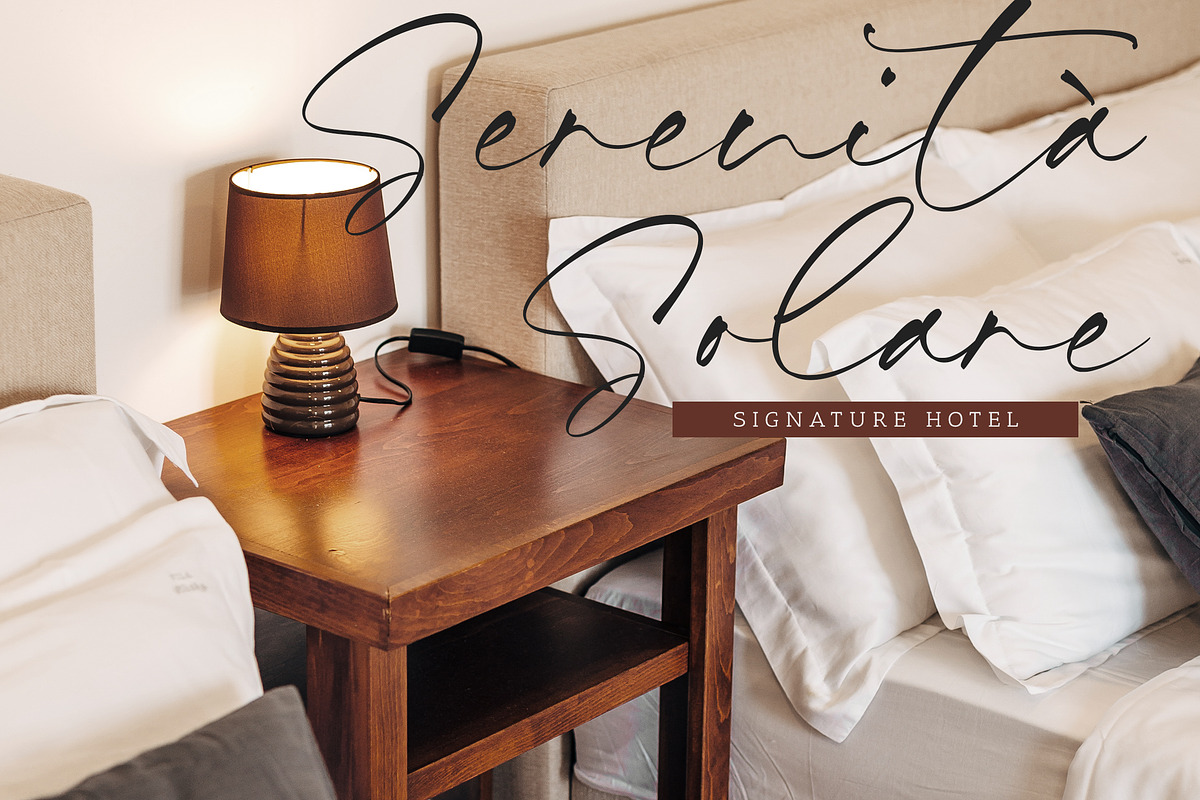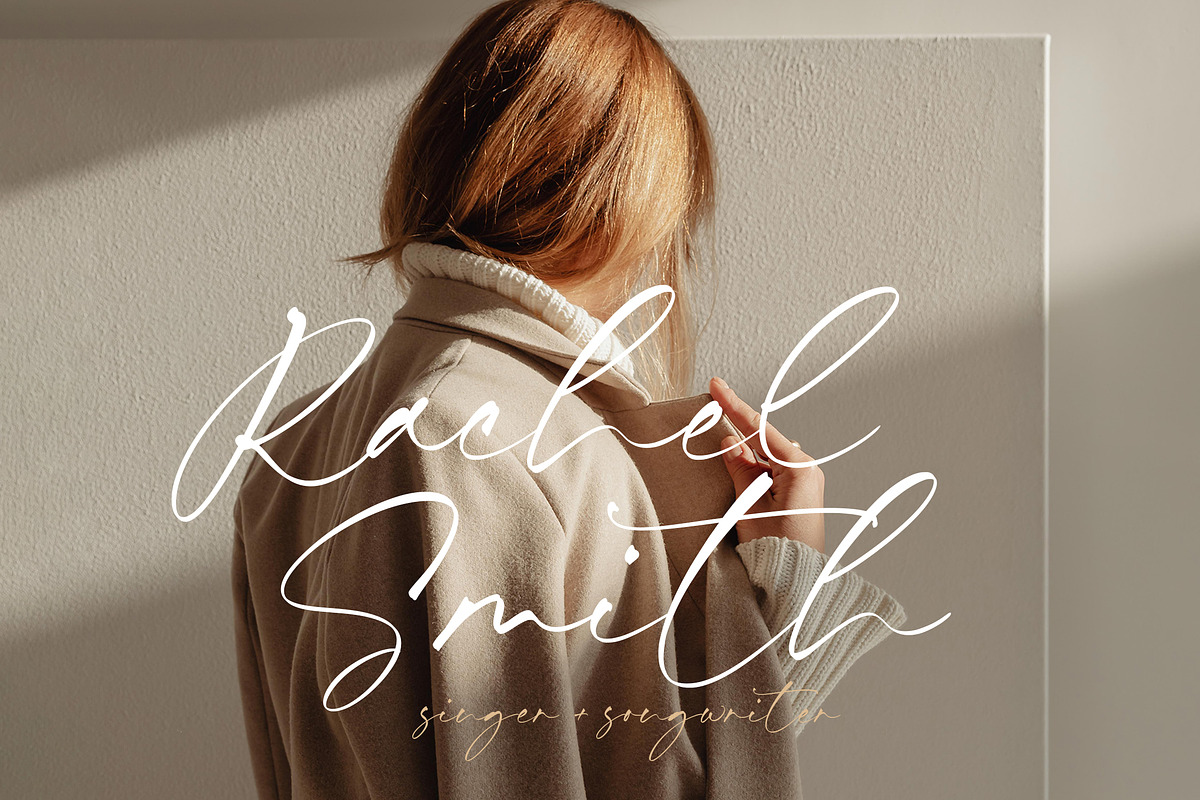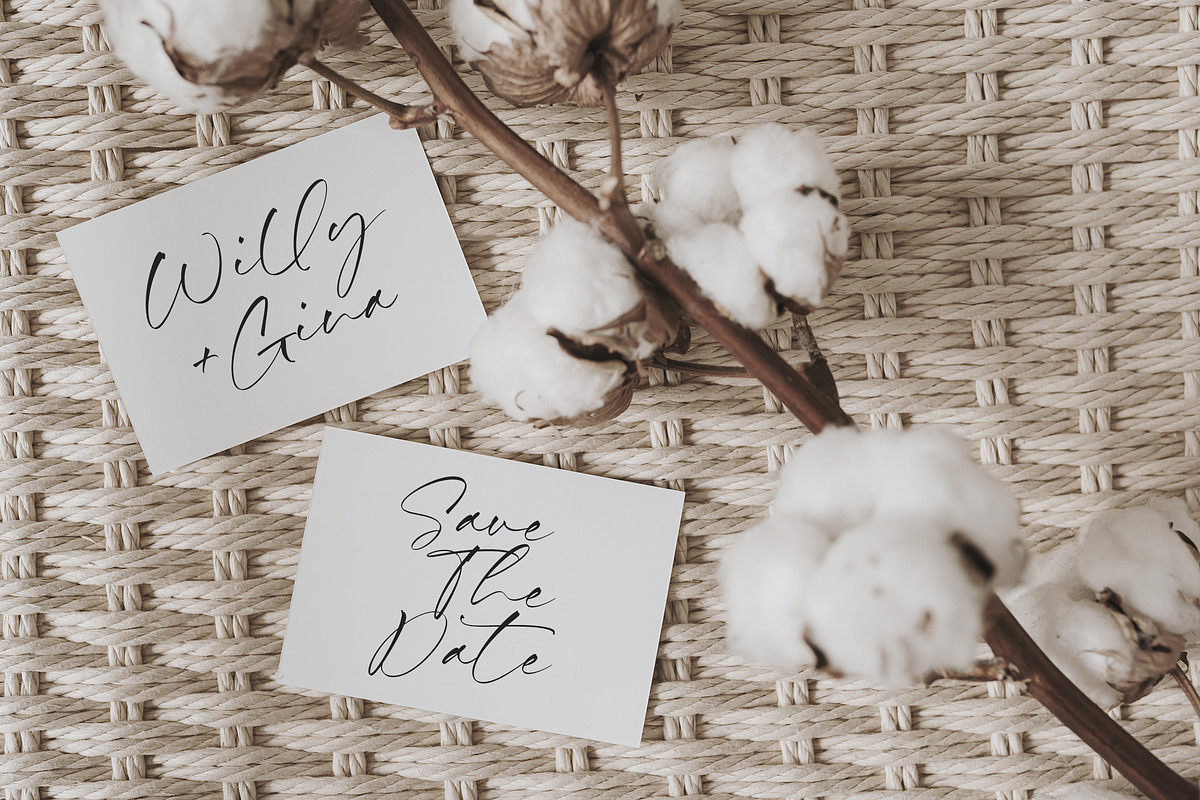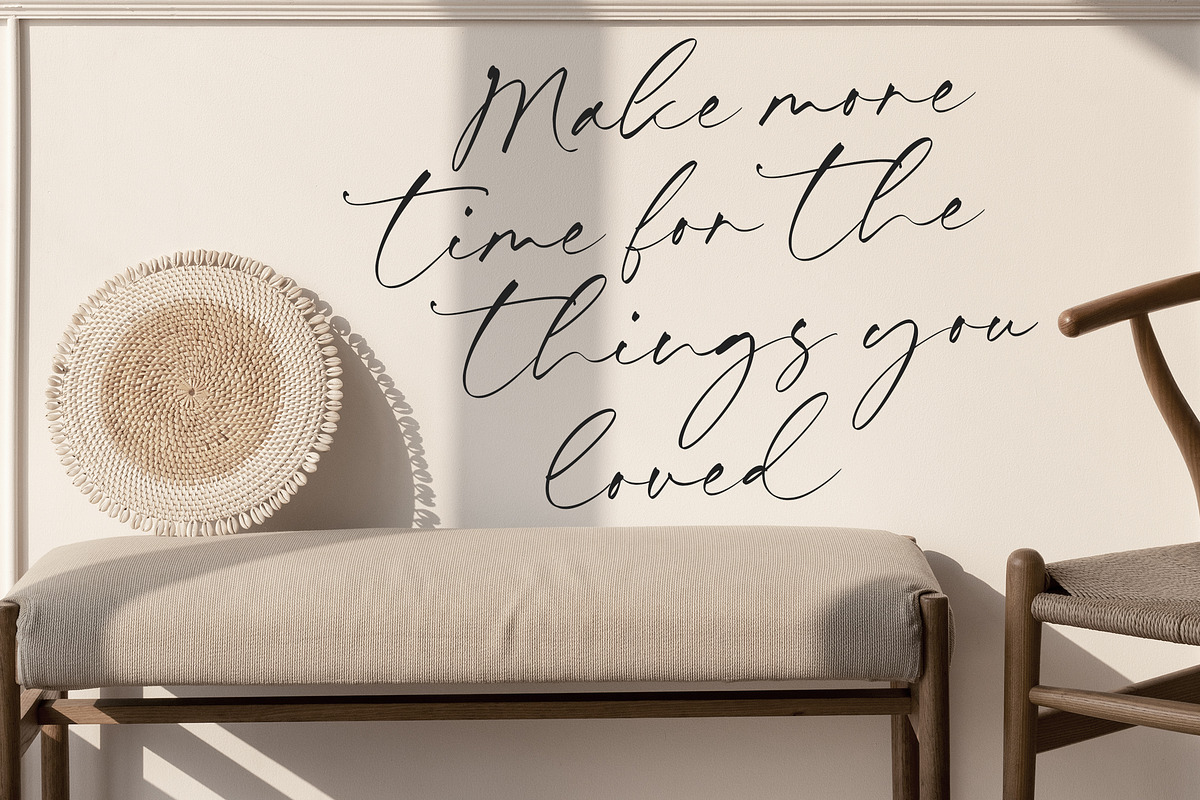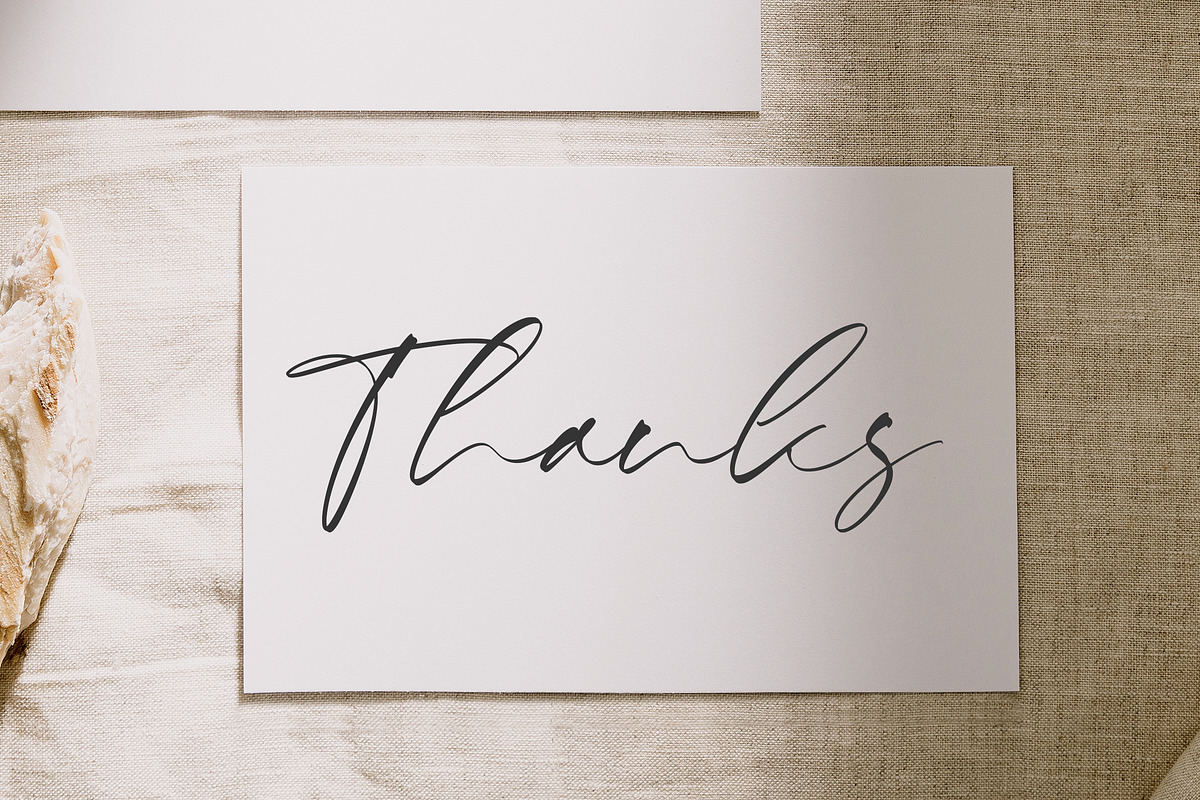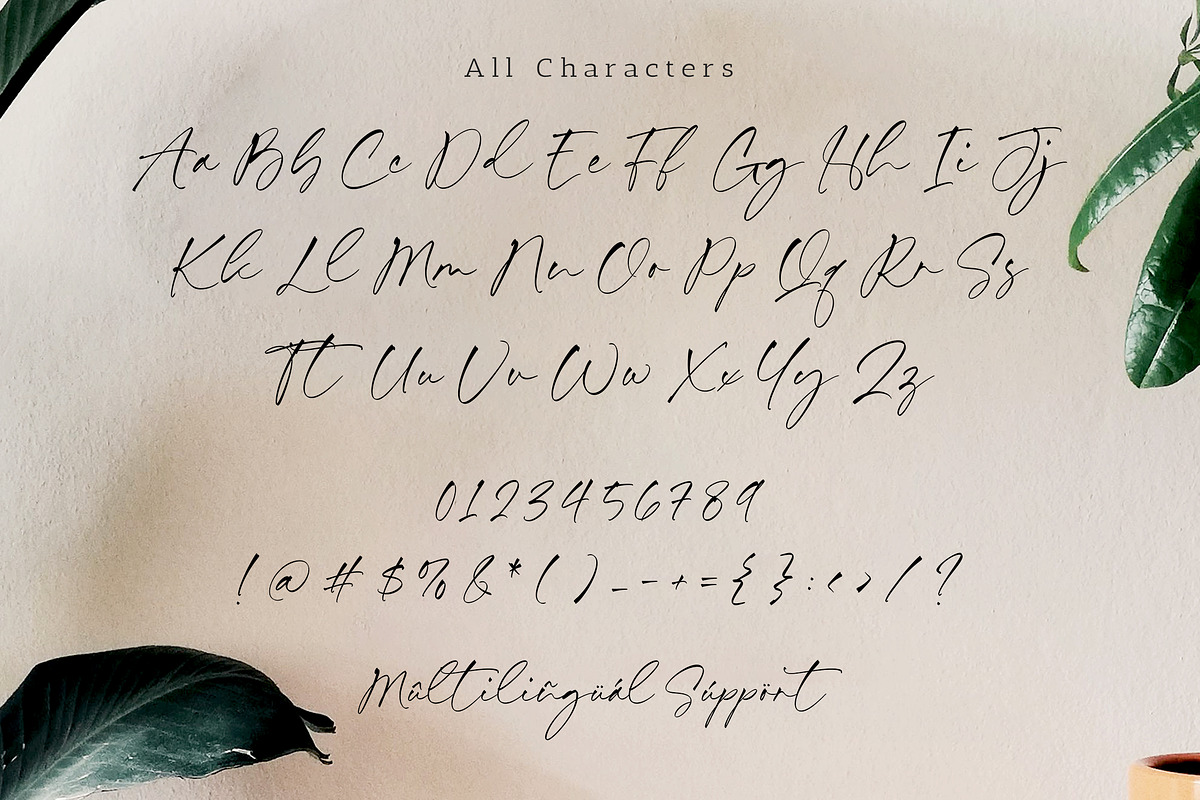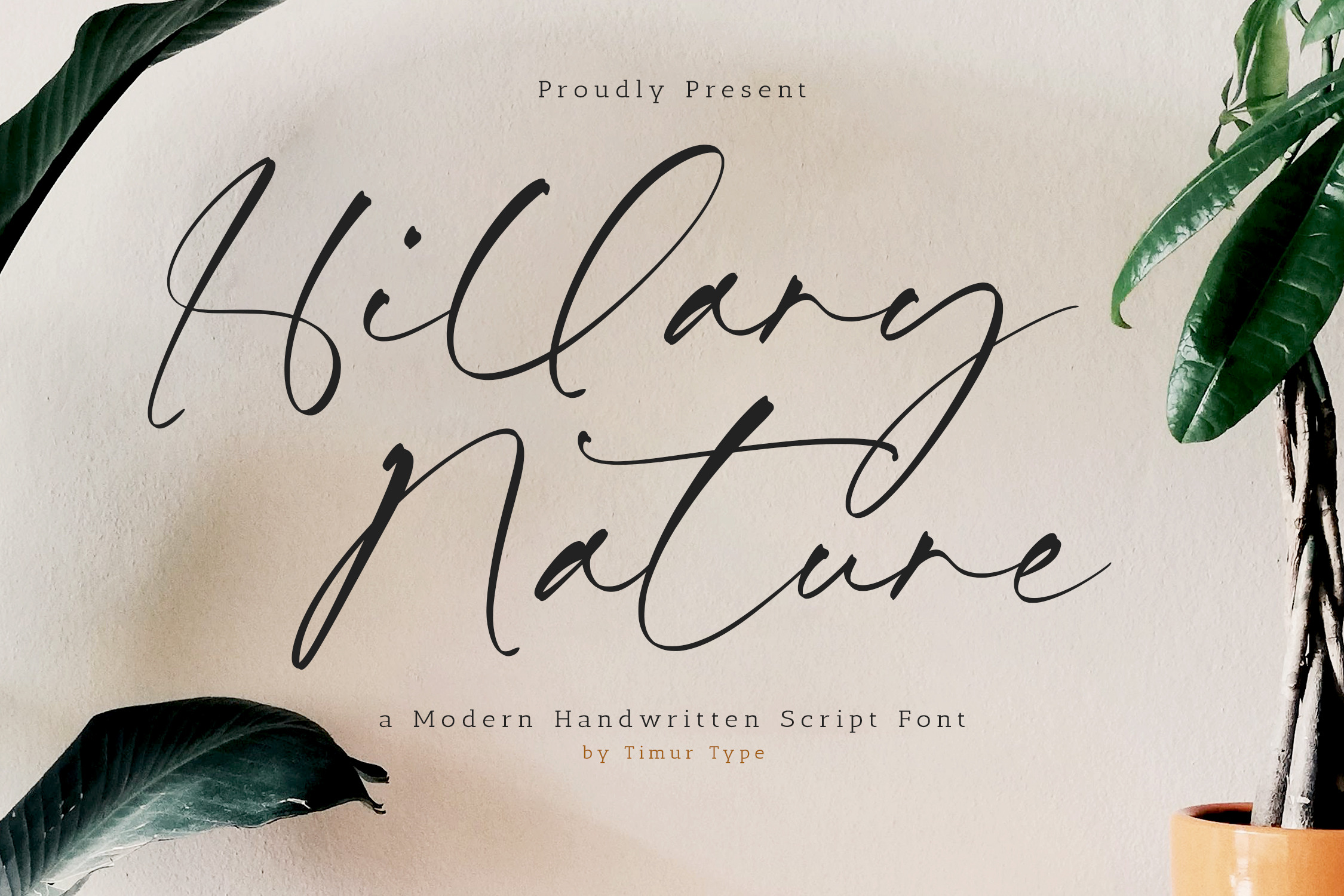
Hillary Nature Font
Hillary Nature is a Modern Handwritten Script Font
This font is a modern handwritten script font that embodies elegance and nature-inspired grace. Its strokes are fluid and organic, reminiscent of the curves found in natural elements like flowing water and gently swaying branches. The font strikes a balance between sophistication and approachability, making it suitable for a variety of design purposes, from wedding invitations to branding materials for eco-conscious businesses. With its delicate yet confident letterforms, Hillary Nature adds a touch of refined beauty to any project.
Hillary Nature Font also supports multilingualism